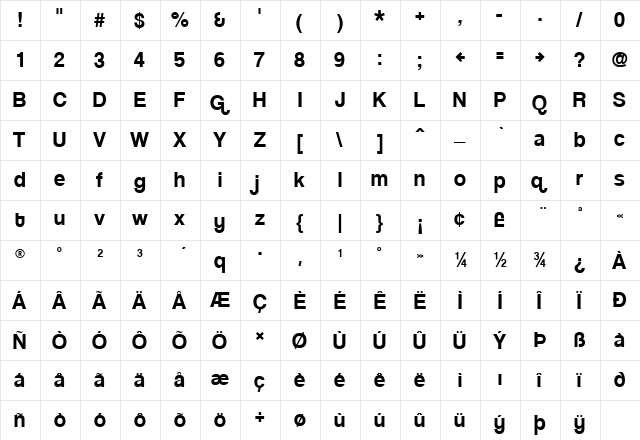
Coolvetica Regular
Design Context for Coolvetica Typeface
Coolvetica takes a measured approach to typography — its balanced proportions and neutral character make it a reliable workhorse for both digital and print work.
Pro Tip: Use Coolvetica in both headline and body roles to test its range before committing to a single application.